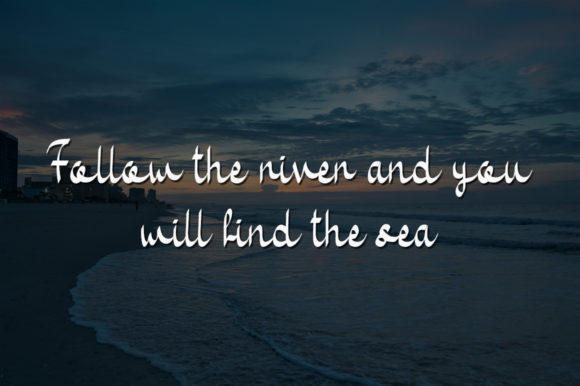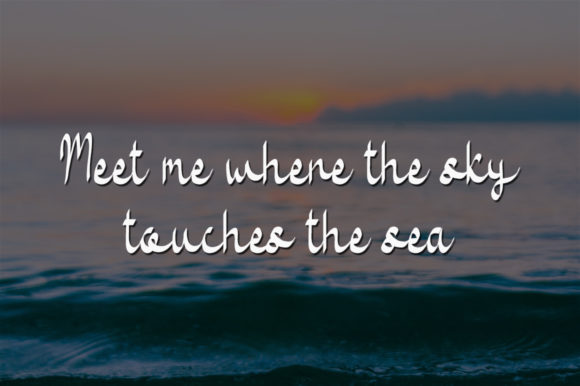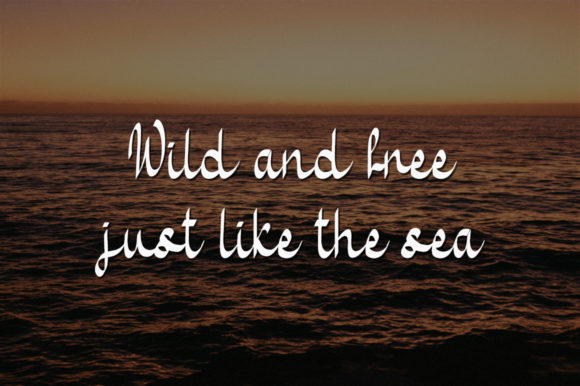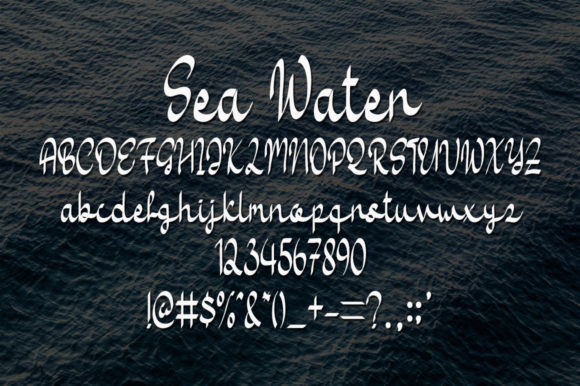
Sea Water Font
About Sea Water Font
Sea Water is a delicate and elegant handwritten font. Its distinct and well rounded letters make this font a masterpiece. Fall in love with its incredibly versatile style and use it to create spectacular designs!